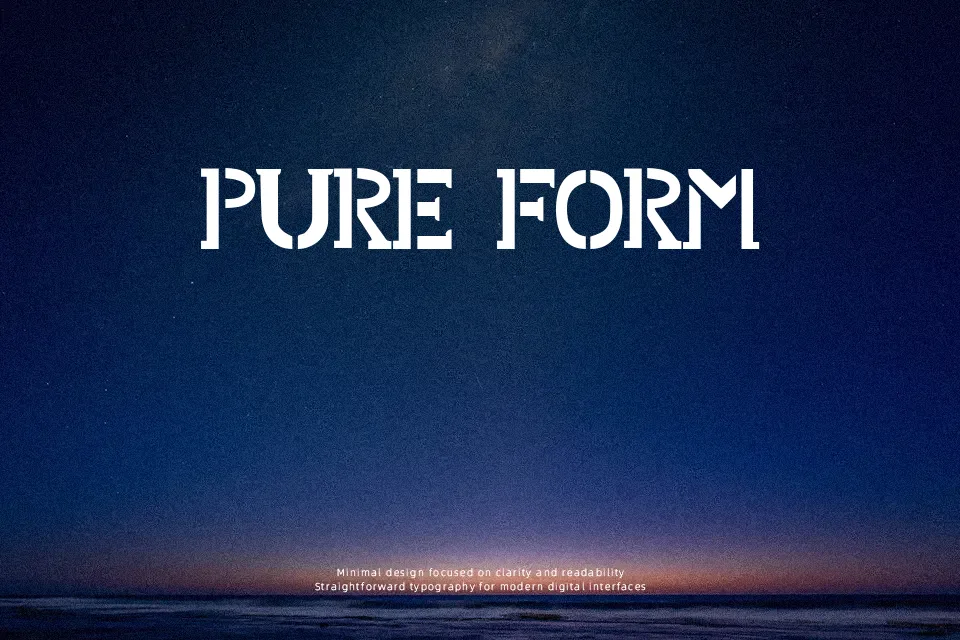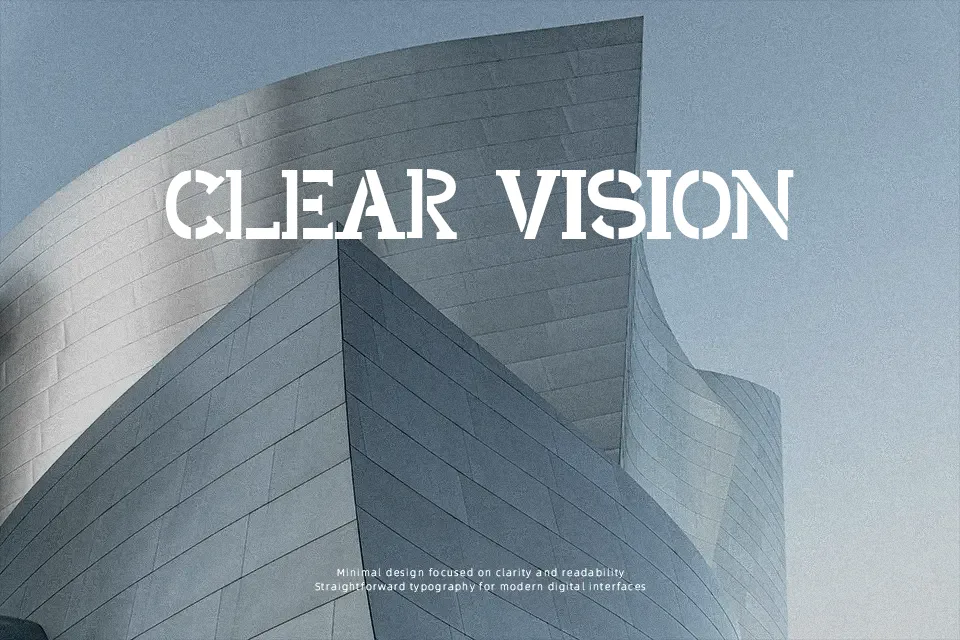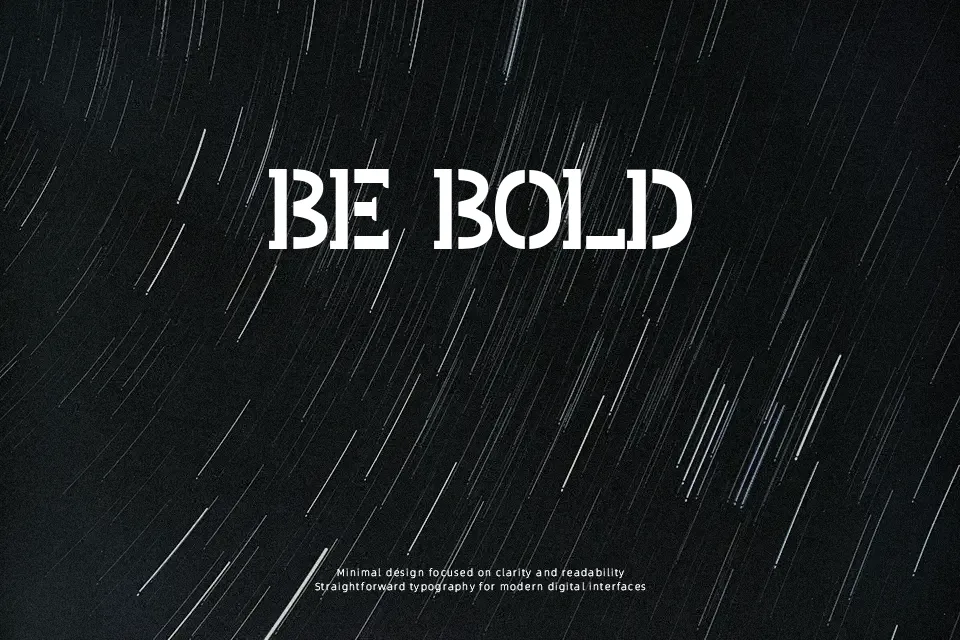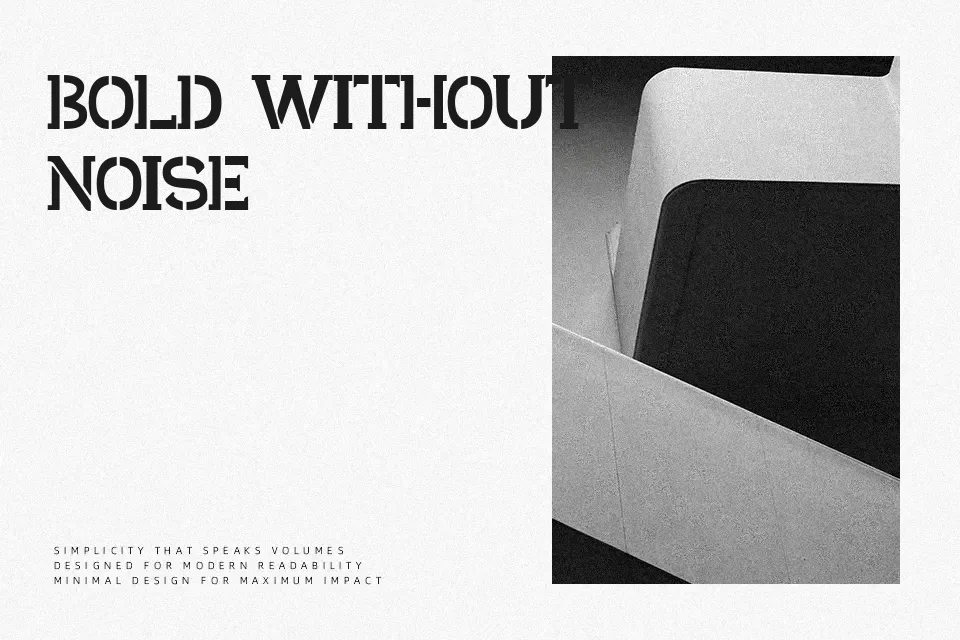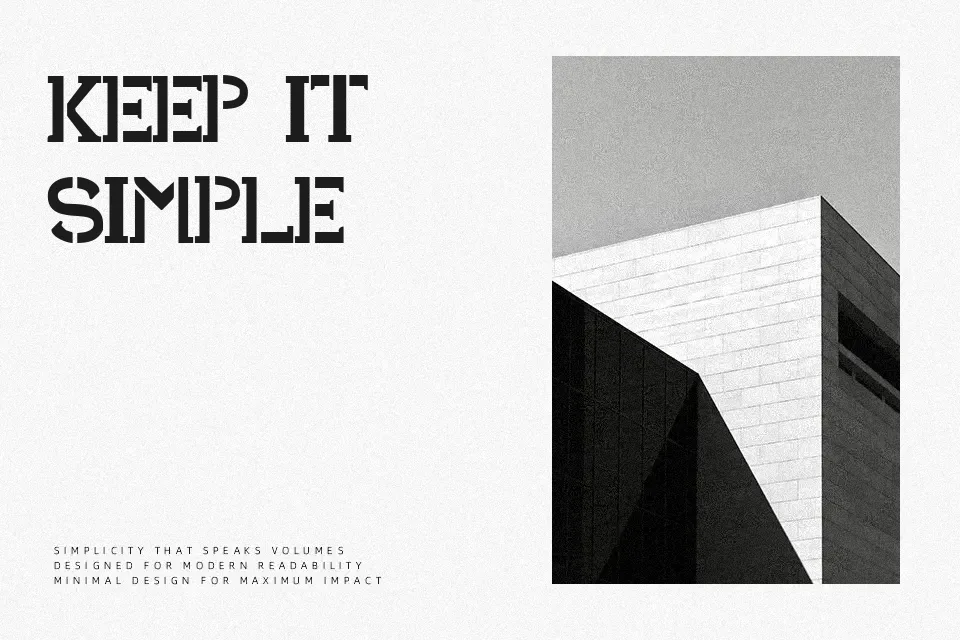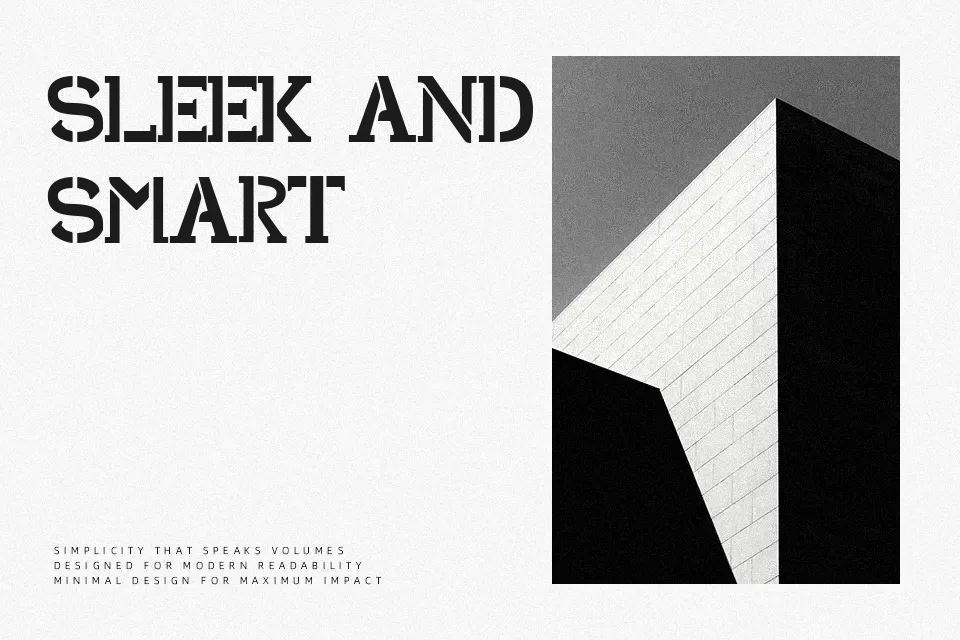
Shark Army Font
Shark Army Font performs best when deployed in bold display environments where its prominent weight and angular stencil gaps create immediate visual authority. The design features heavy, uniform strokes with geometric proportions, balanced letter spacing, and distinct cutout incisions across uppercase stems and bowls. These rugged breaks ensure consistent military character while maintaining strong legibility at substantial scales. However, the heavy density and fragmented contours make the typeface unsuited for long paragraph reading or compact user interface elements. For billboard headlines, tactical game packaging, and athletic team emblems, the letterforms offer exceptional visual power and clarity.
tactical video game titles
military themed poster headlines
rugged athletic apparel graphics
industrial equipment packaging
continuous paragraph body text
small mobile interface labels
dense editorial publication copy
legal document fine print
Perfect for gaming, headline, and logo, with a bold and display style.